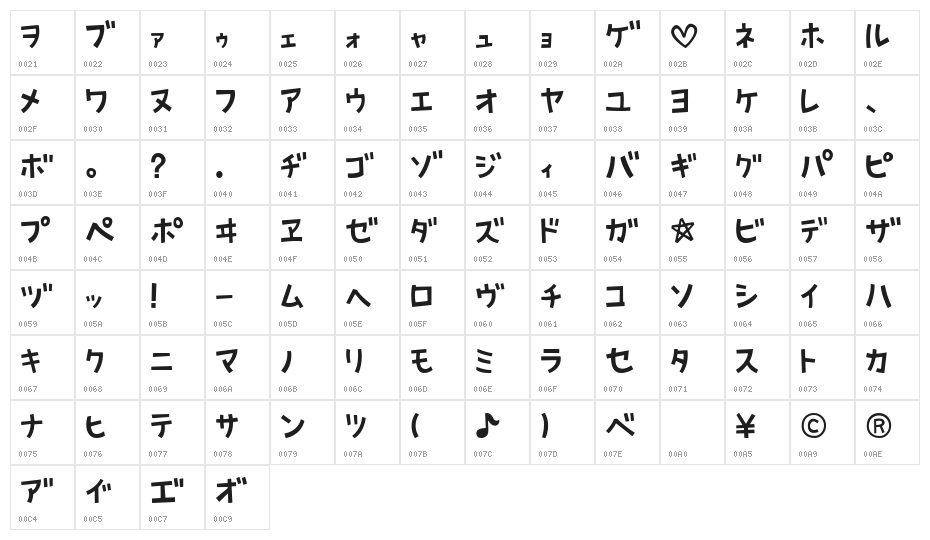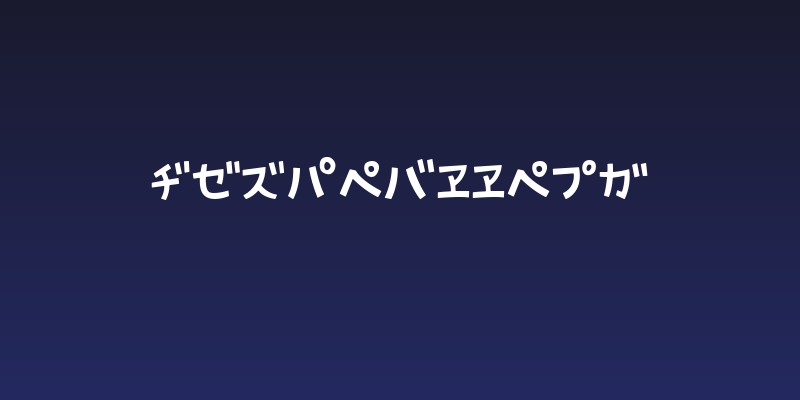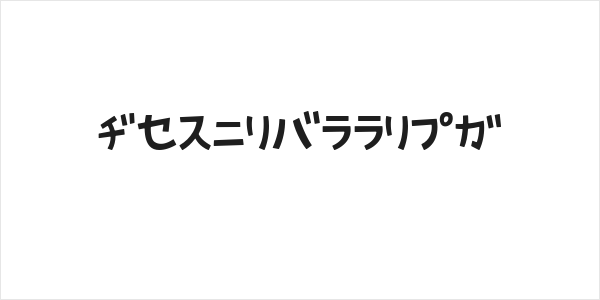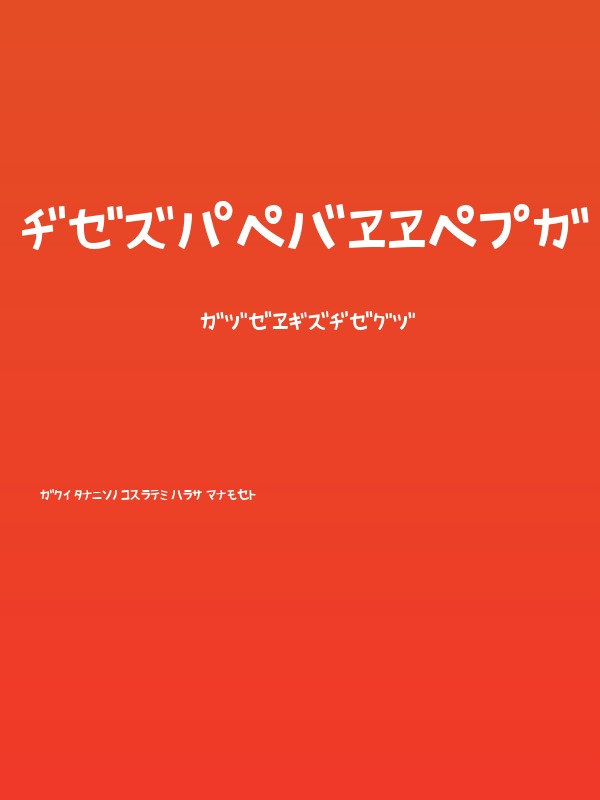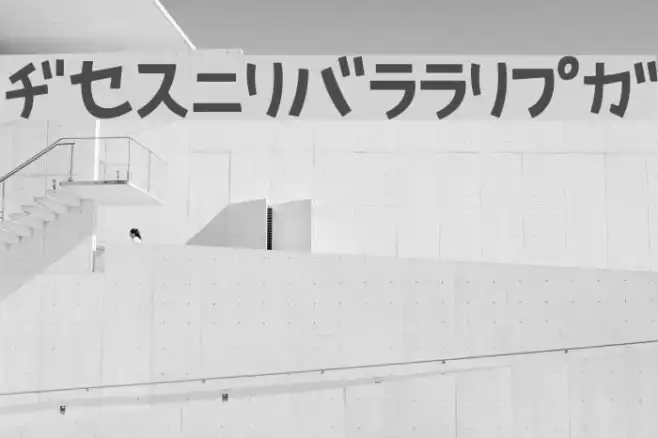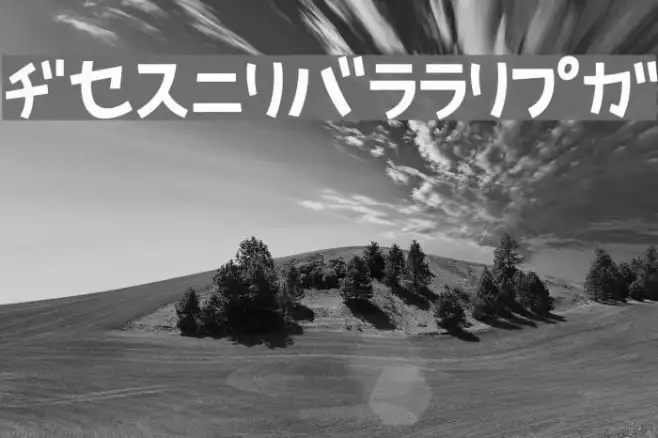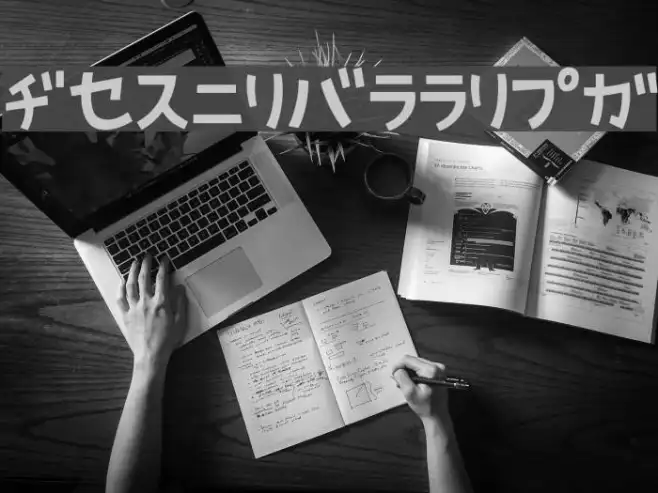
AprilFoolKT Font
AprilFoolKT Description
This font features bold, geometric shapes with a playful and modern aesthetic. The characters are slightly rounded, giving them a friendly and approachable feel. The strokes are consistent in thickness, contributing to a clean and uniform appearance. The overall design is simple yet impactful, making it suitable for various creative applications. The font's style is reminiscent of contemporary design trends, with a focus on clarity and readability. Its boldness ensures that it stands out, making it ideal for attention-grabbing headlines or titles.
| Proposed Projects | Ideal for branding, posters, headlines, and any project requiring a modern and bold typeface. |